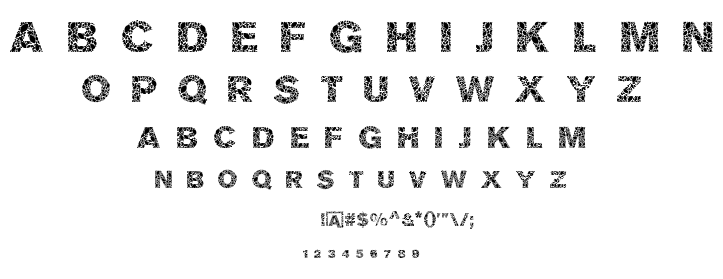
This is free font created by emptypage design studio, inspired by Akzidenz Grotesk typeface. It is FREE to use for both: commercial and non commercial projects. If you find any bug, please let us know here in comments or on our email and we repair it. Zip contains PDF, OTF and TTF file. If you use our font in your design, please tell us about this and show your work. Font contains Western and Central Europe encoding, and also Baltic and Turkish. Mosaic Leaf include also Nordic characters set, numbers, punctuations and symbols and currency symbols. If you have any question, don’t hesitate to ask: lukasz@emptypage.pl . If you want support us, you can send us a sweets, books about design and typography or million euros via PayPal:) Font was designed and prepared by Lukasz Kulakowski and Zbyszek Czapnik.